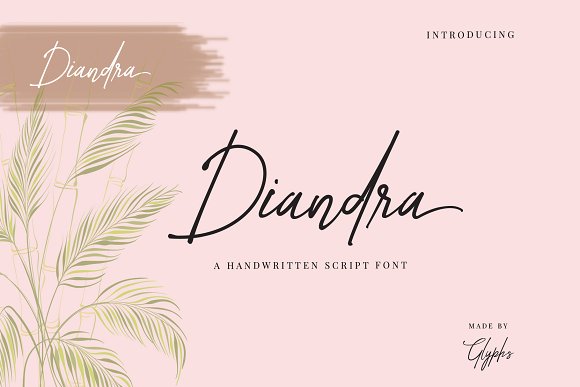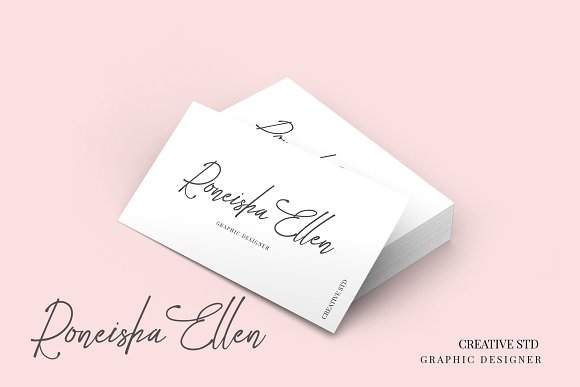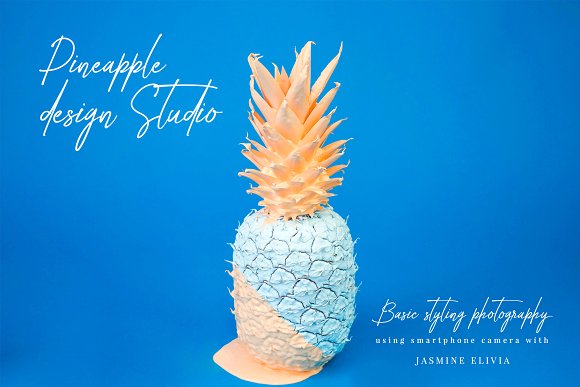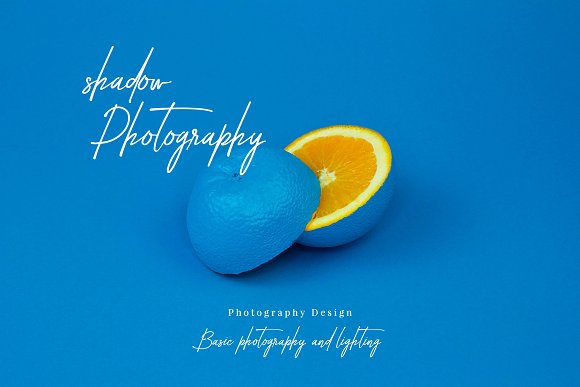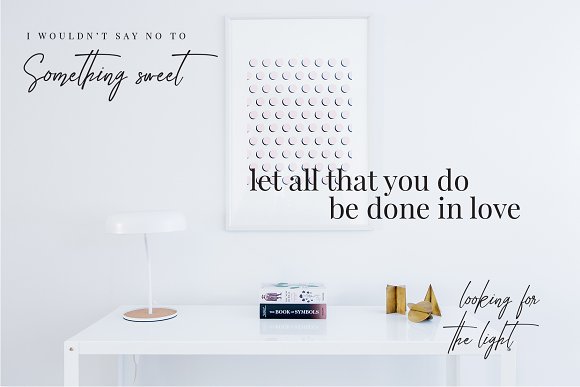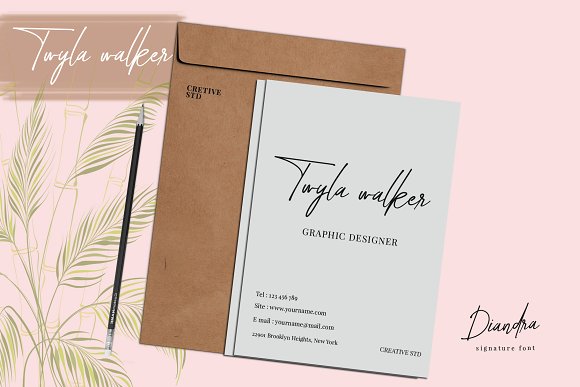
Diandra Signature font
Diandra is a handwritten signature script with a natural & stylish flow. This collection of scripts is perfect for personal branding. It was made with the intention to be used by Photographers as a watermark for their Photography Business.